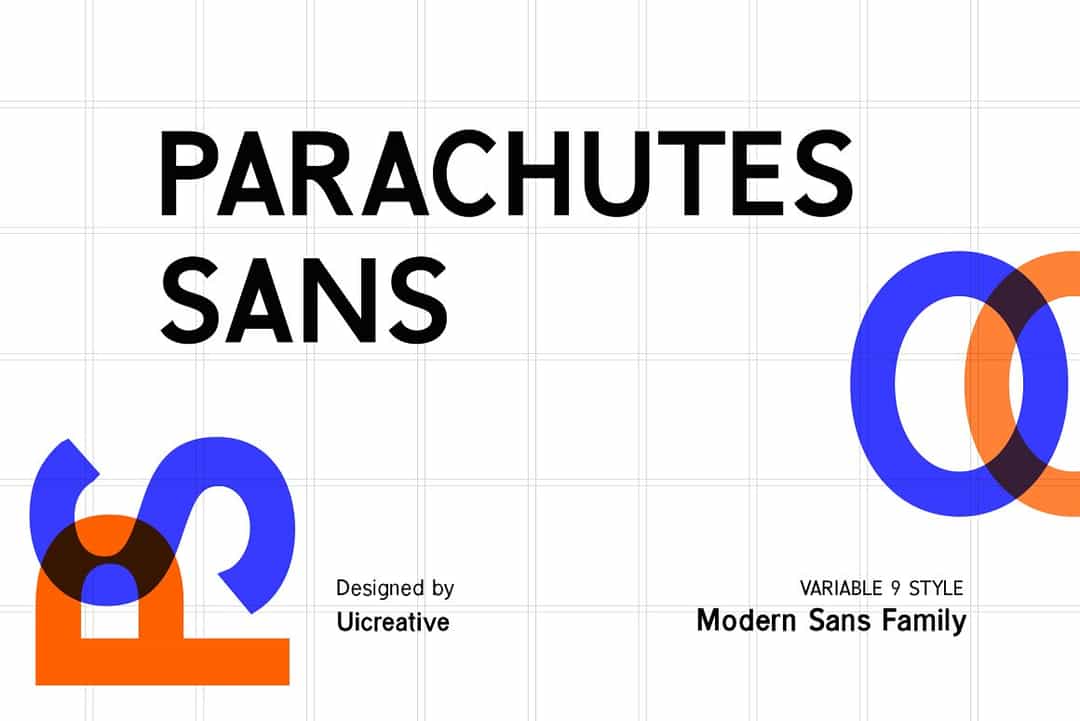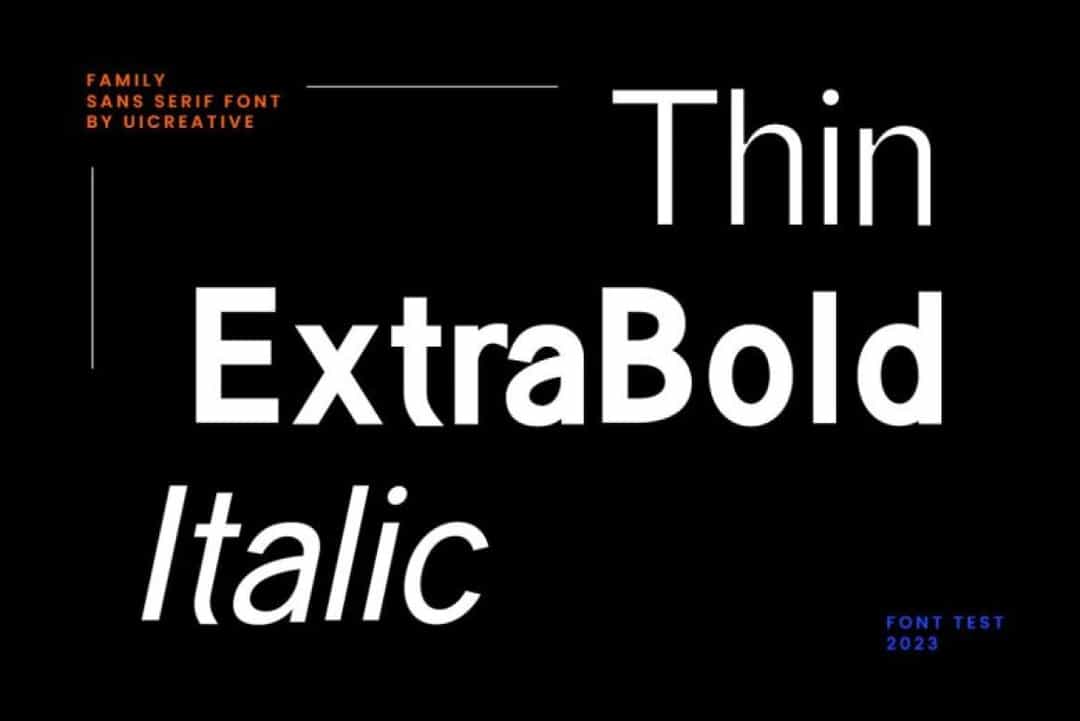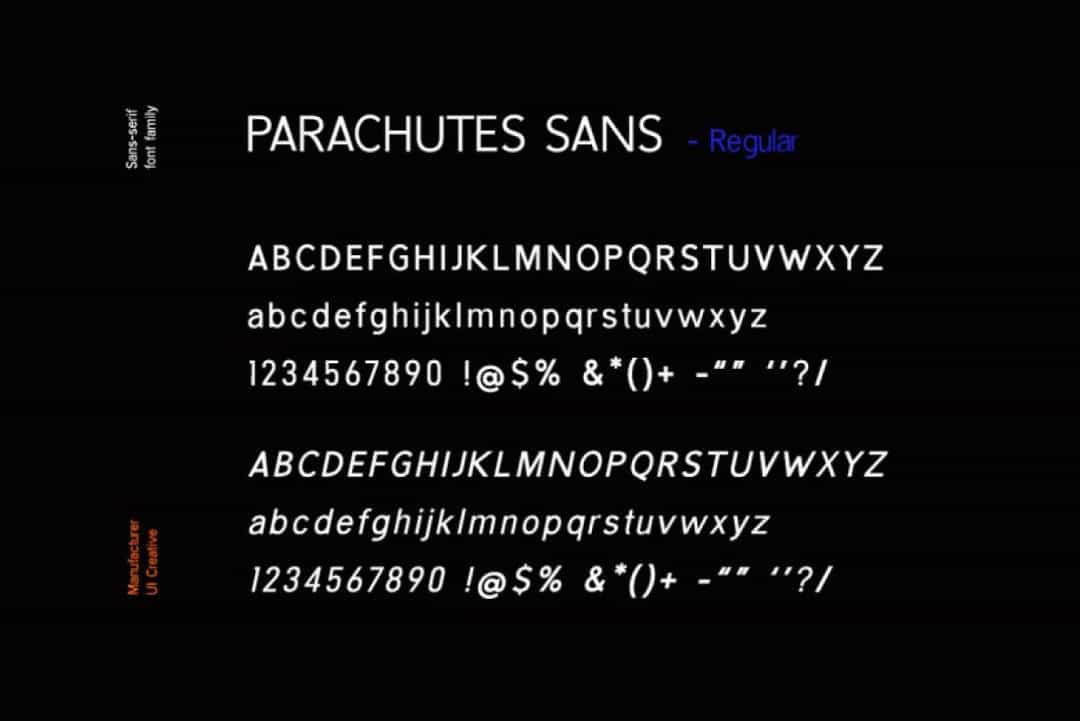
Parachutes is a modern sans-serif font which is elegant, beautiful and stylish – an ideal choice for logos, stationery signature wedding invitations and quotes for magazines, book covers, headers for websites as well as packaging clothing branding designs among many other applications.